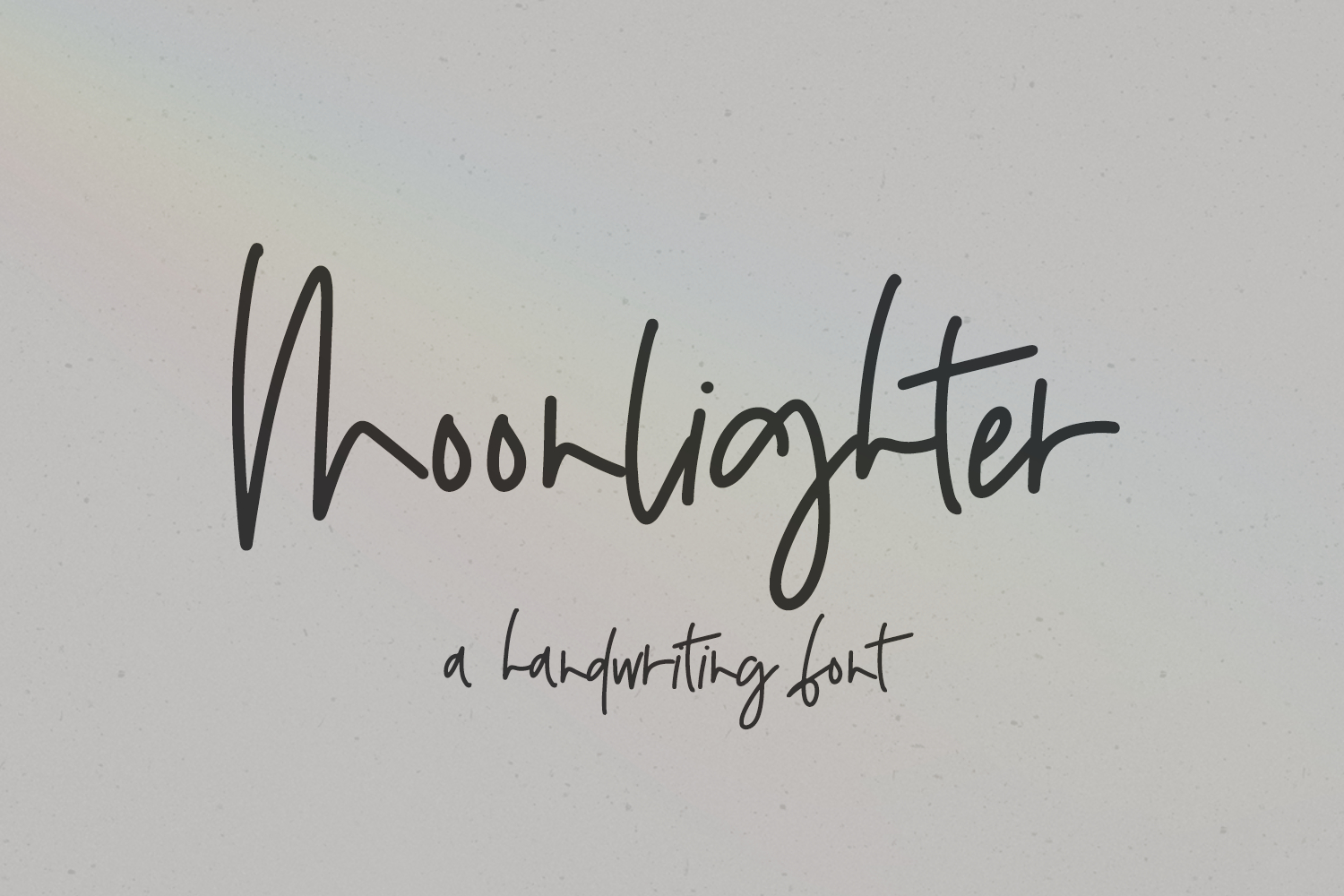
Introducing Moonlighter, a messy, monoline handwriting font.
Moonlighter is best for:
- website design + website accents, blog design
Moonlighter includes:
- 26 alternate lowercase characters
- 10 ligatures - bb, dd, ff, ll, mm, nn, oo, rr, ss, tt